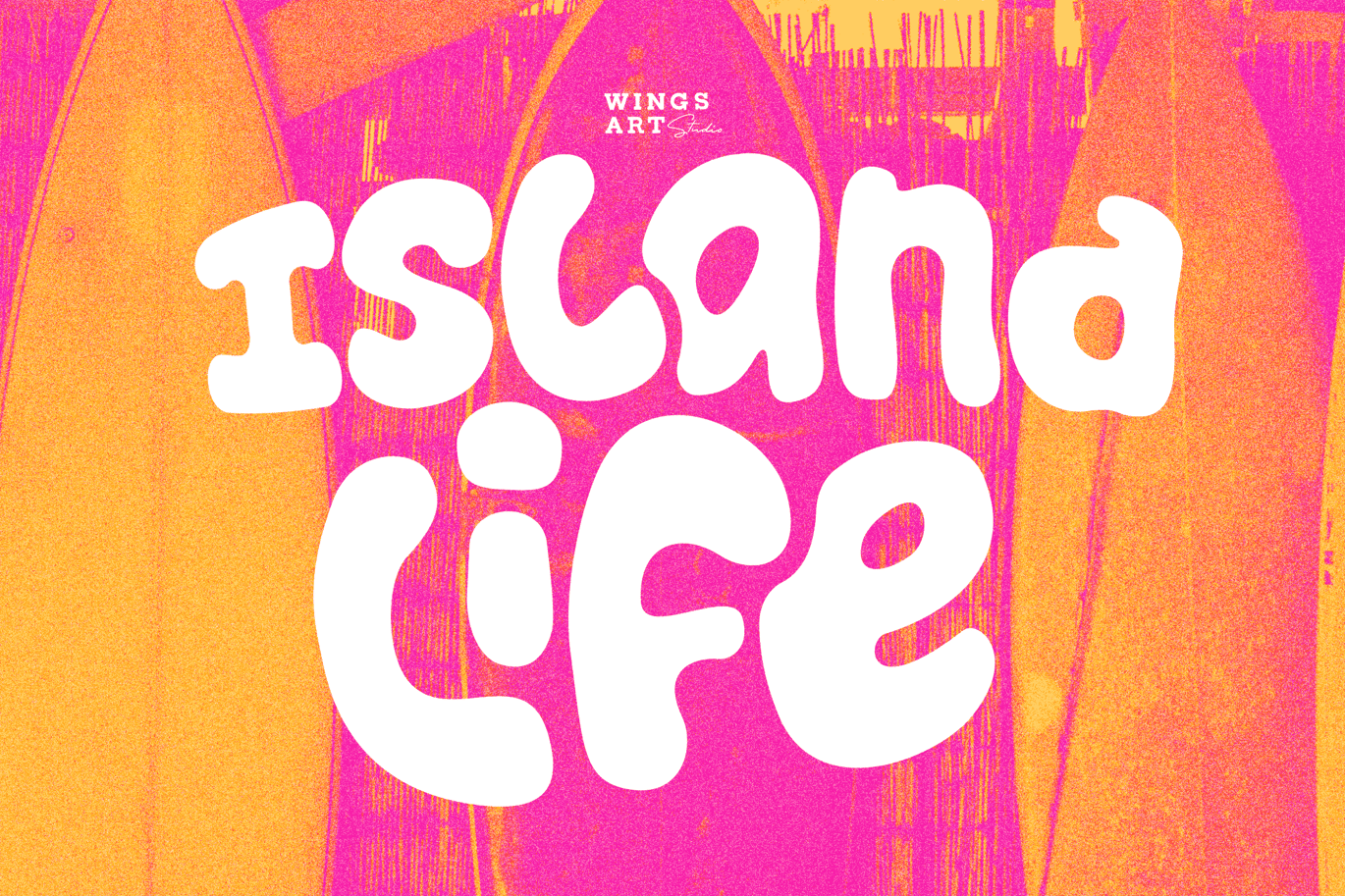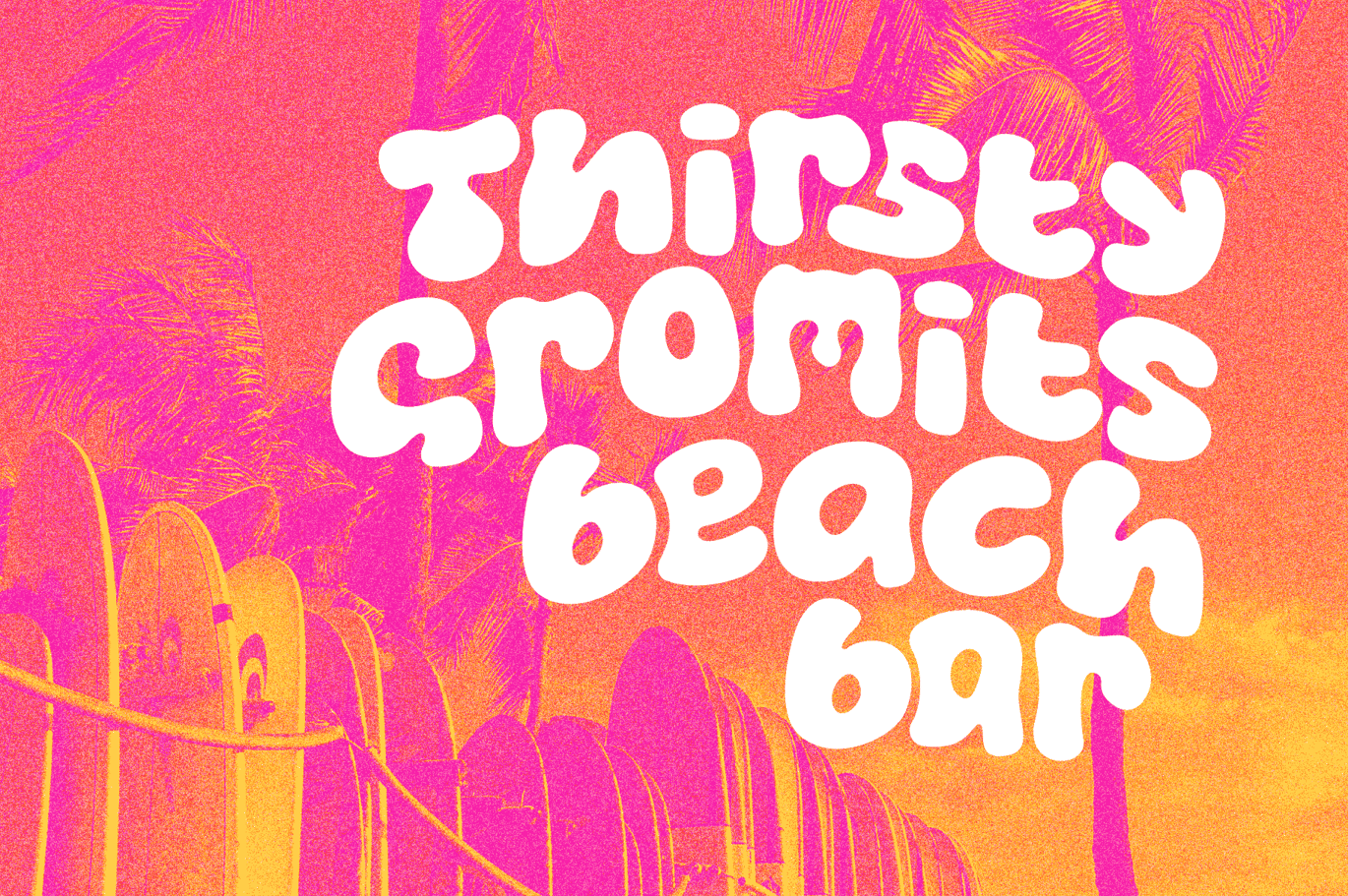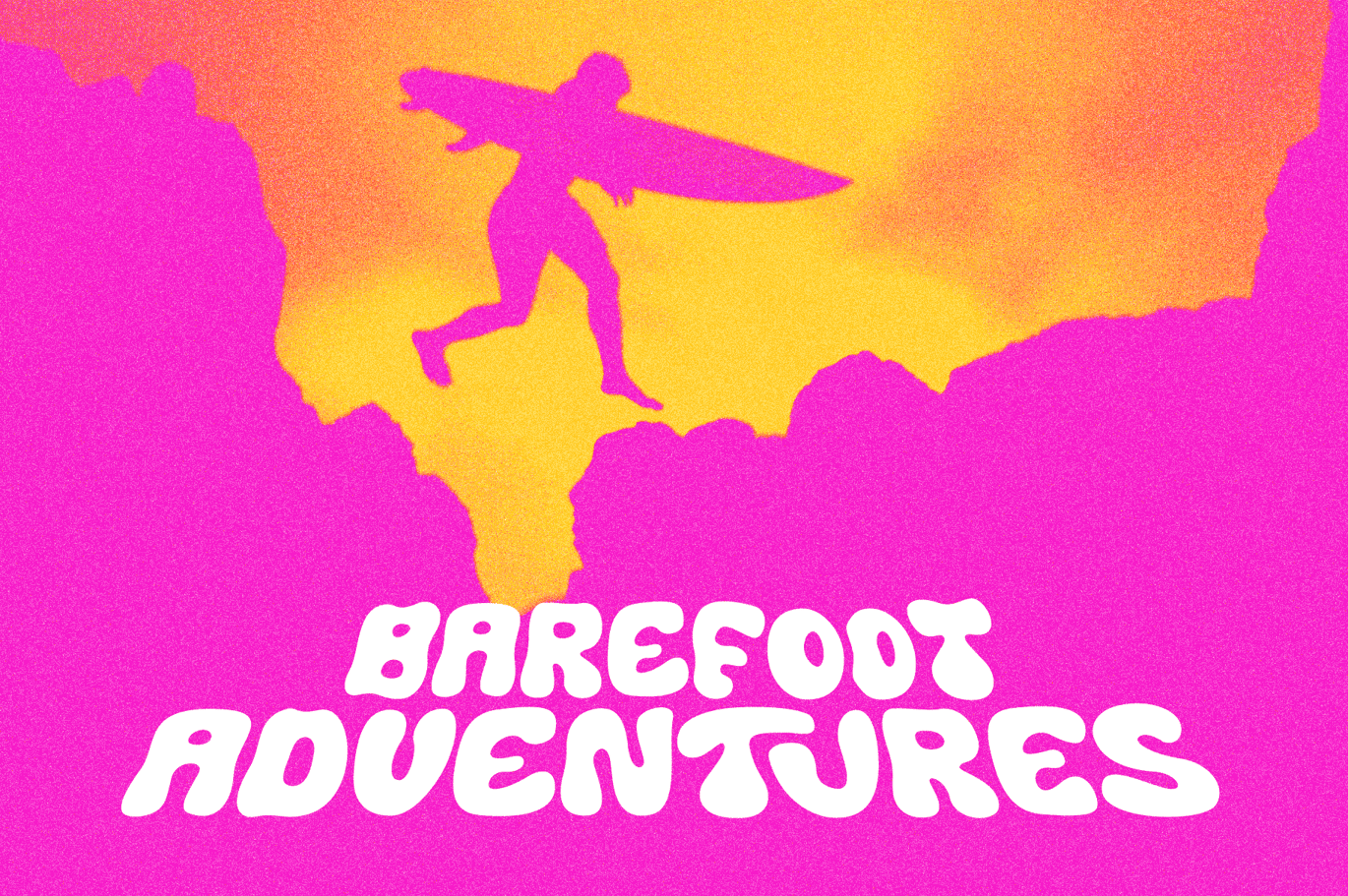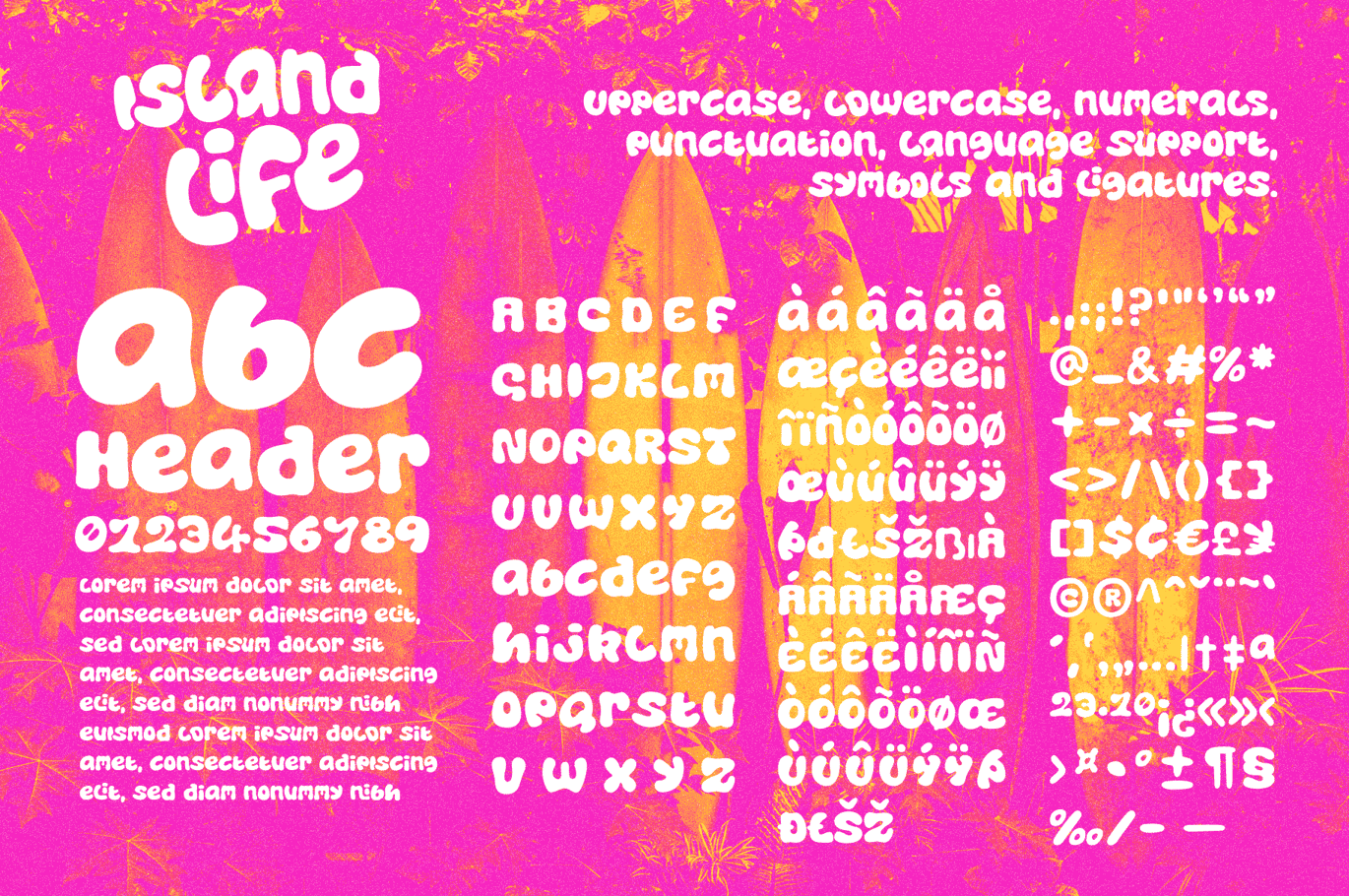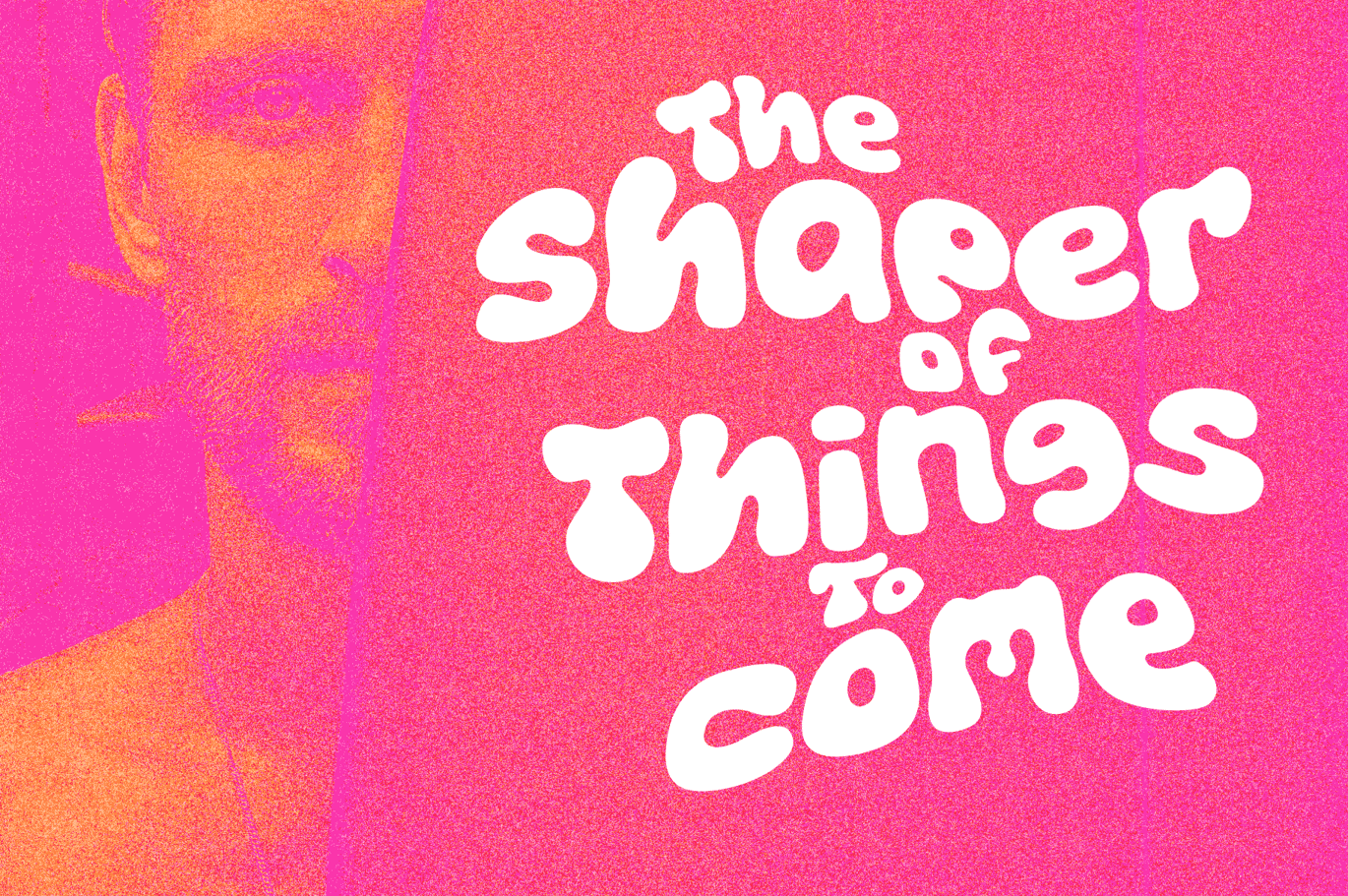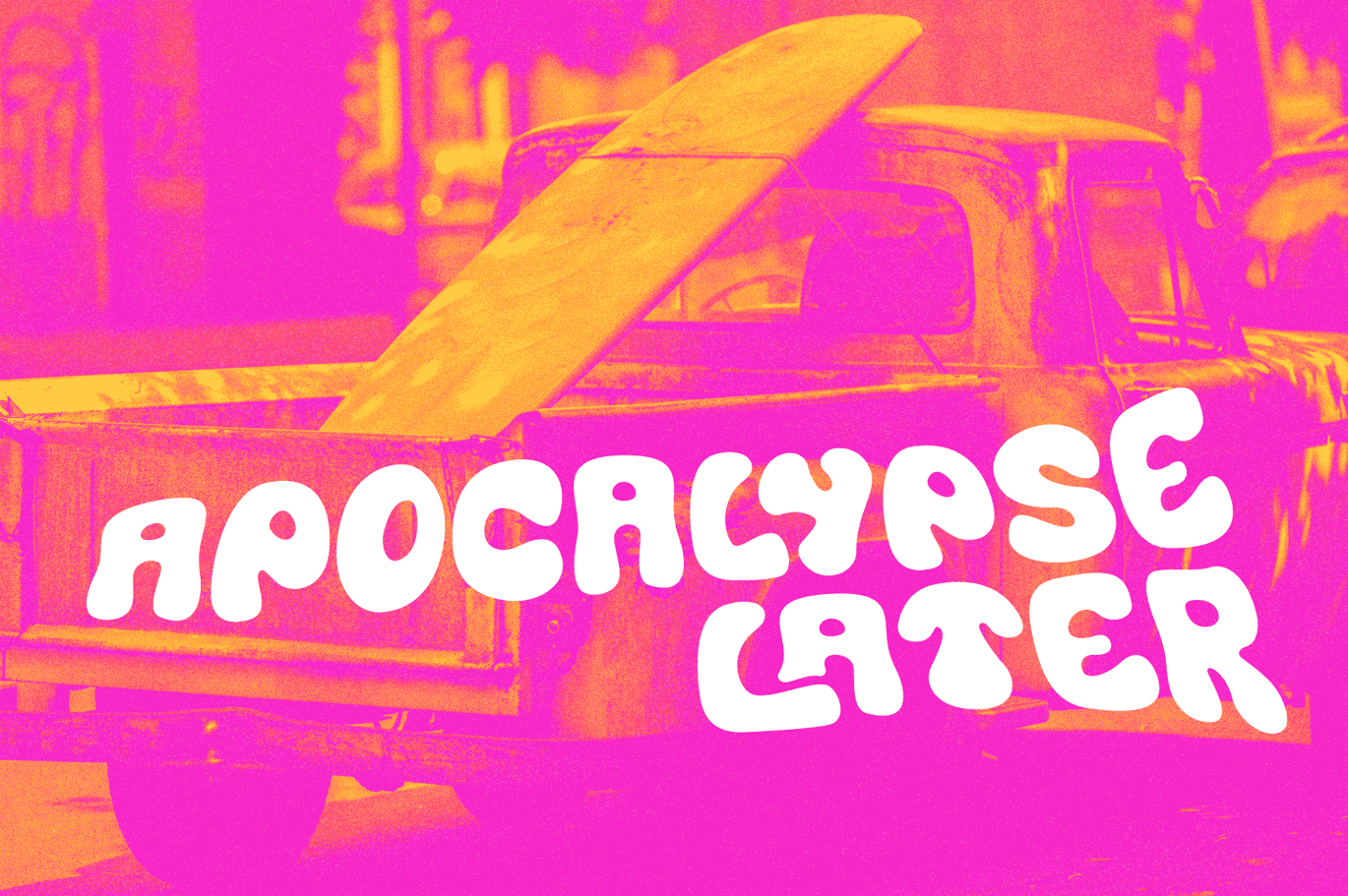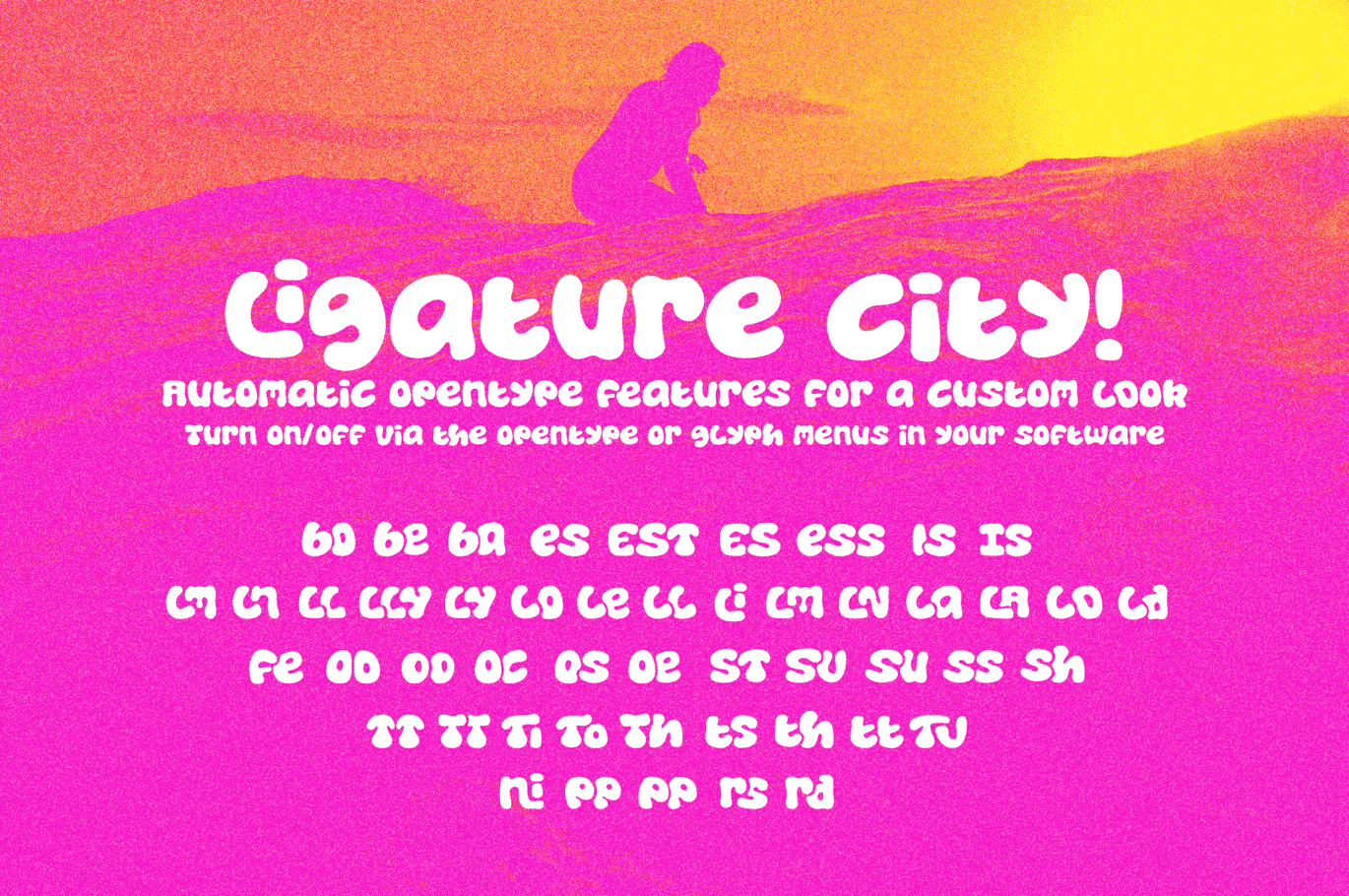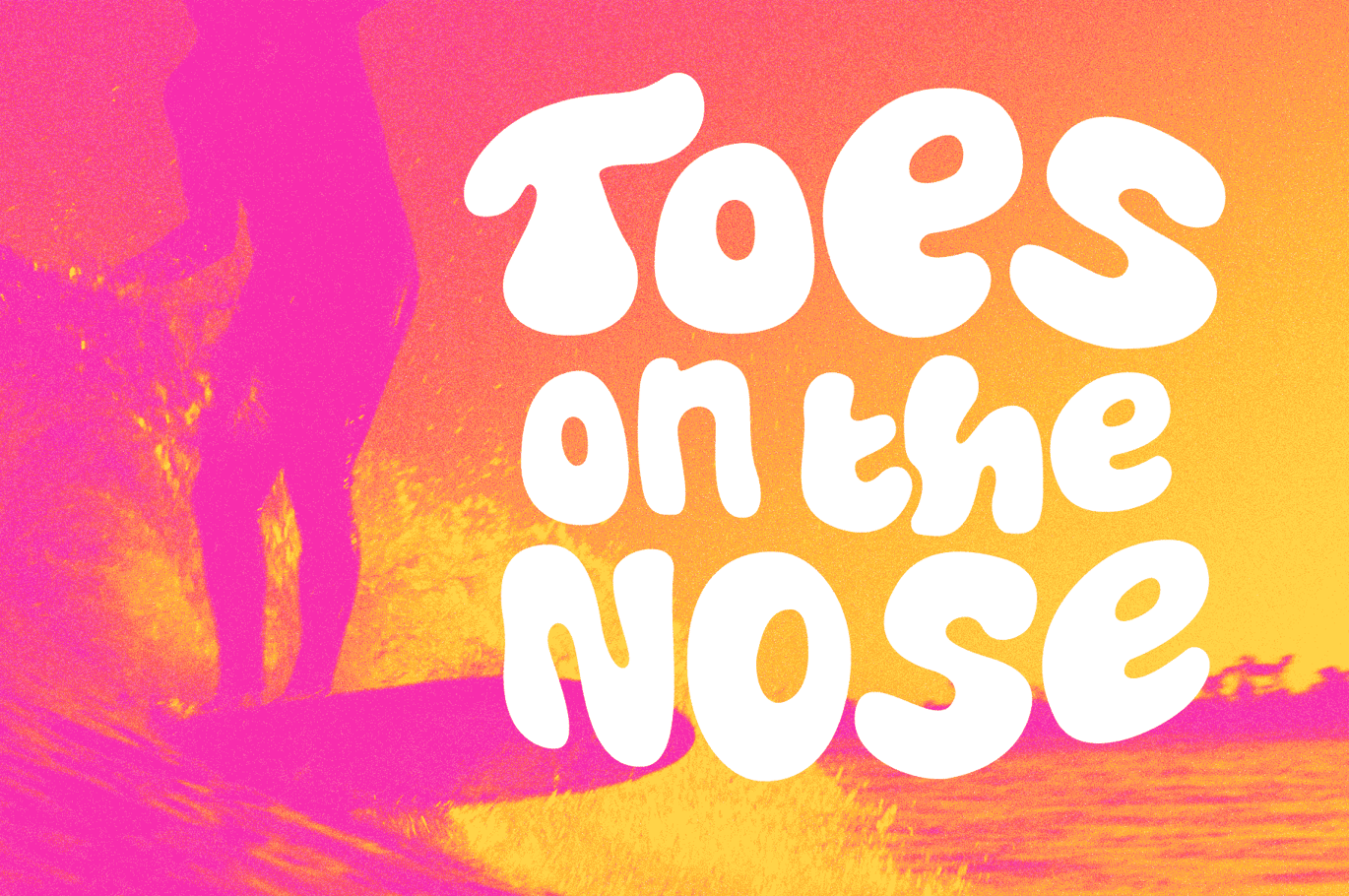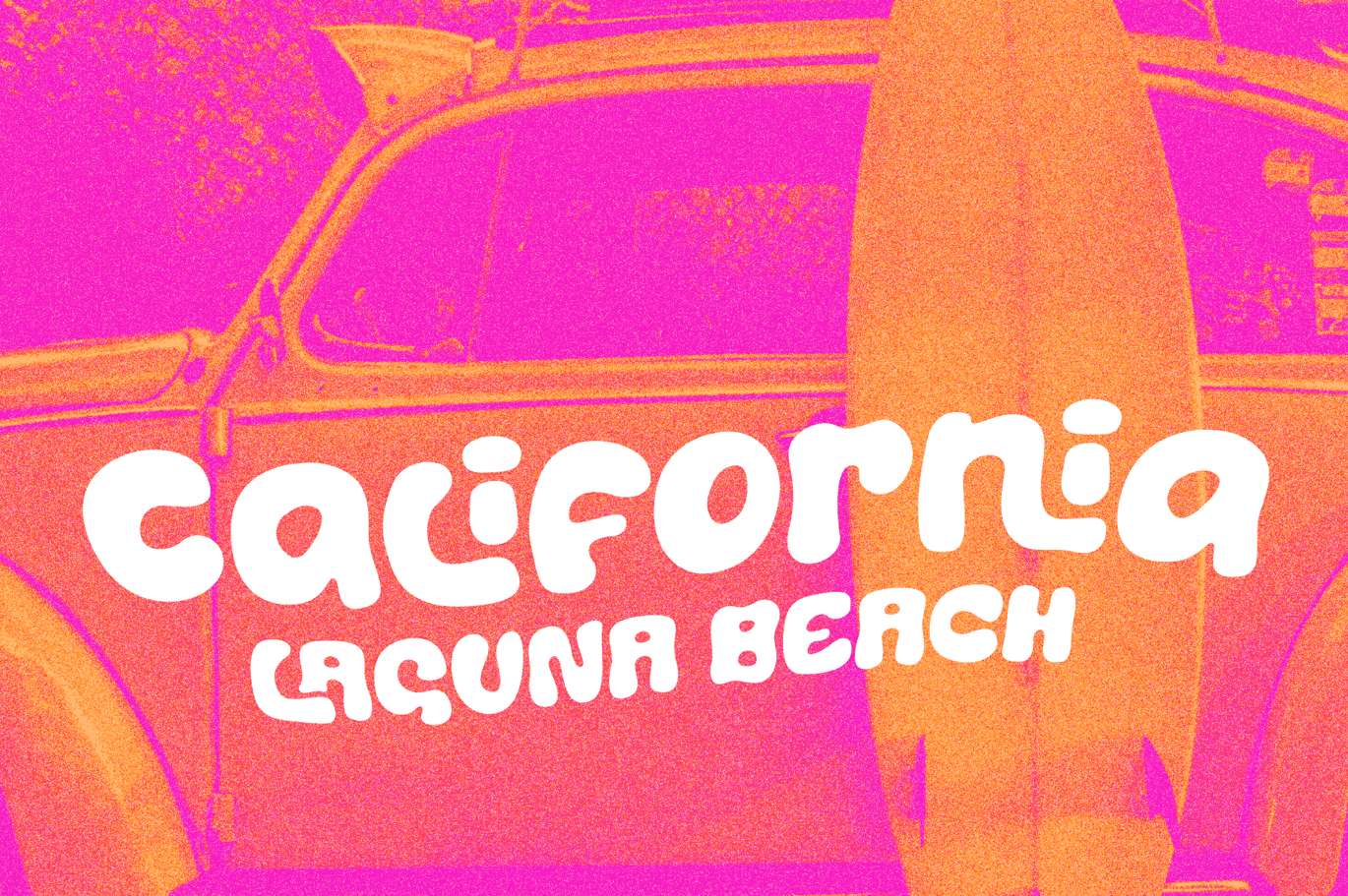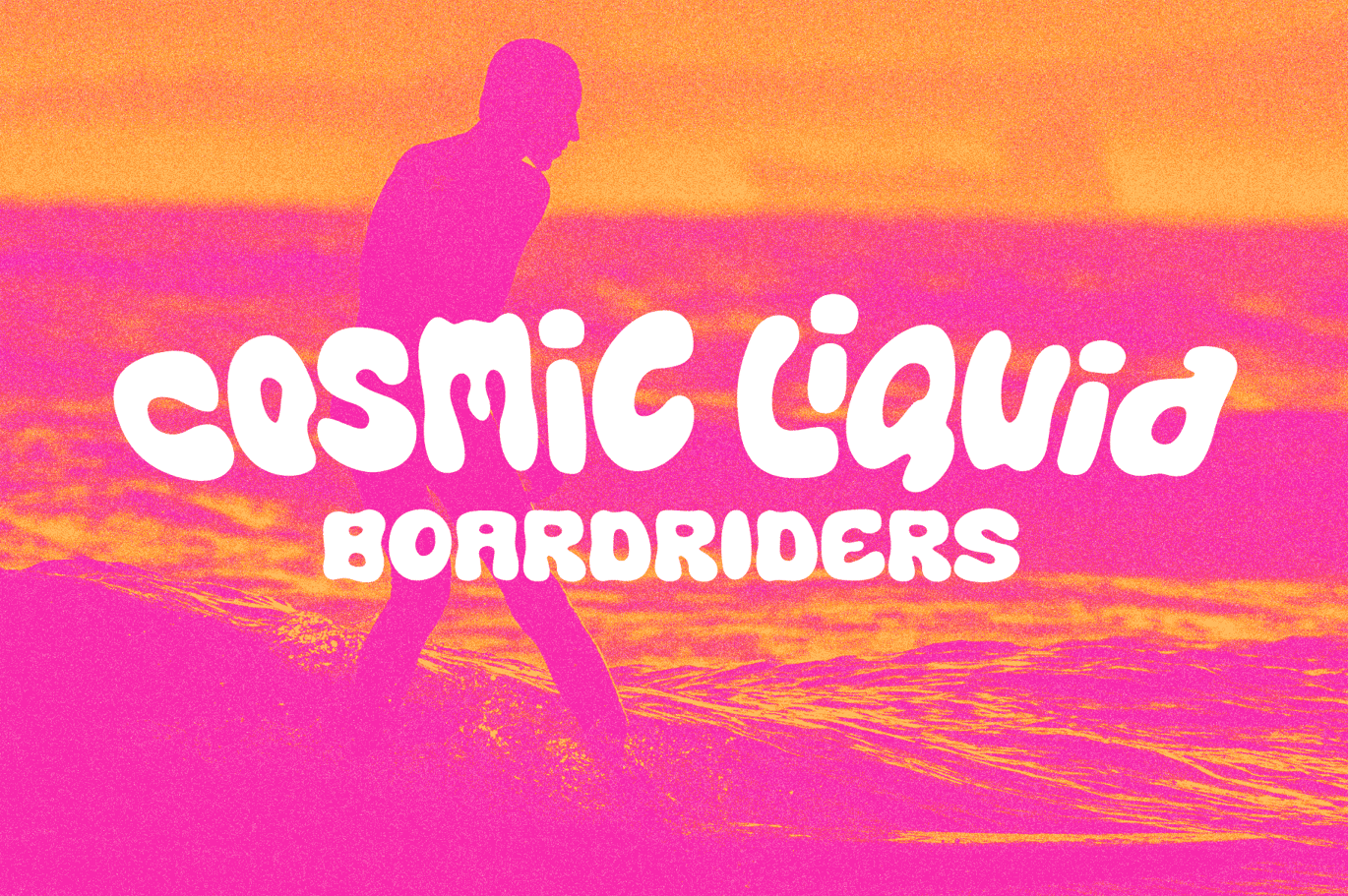
Island Life – A Surf Font for Endless Summers
Island Life is a font inspired by the loose, wavy style of type associated with 1970s surf culture. Often found on lo-fi surf movie posters, it’s an aesthetic that promotes a laid-back, summer loving style.
The Island Life font features unique uppercase and lowercase characters, along with numerals, punctuation and language support, symbols and lots of custom ligatures for a truly hand-made look. All ligatures function automatically and can be turned on/off using the opentype features built into your software of choice.
It’s the perfect font for the summer season and I recommend first laying out your text and then experimenting with warp, wave and bulge effects for some excellent results. Check out the visuals to see it in action. Enjoy!